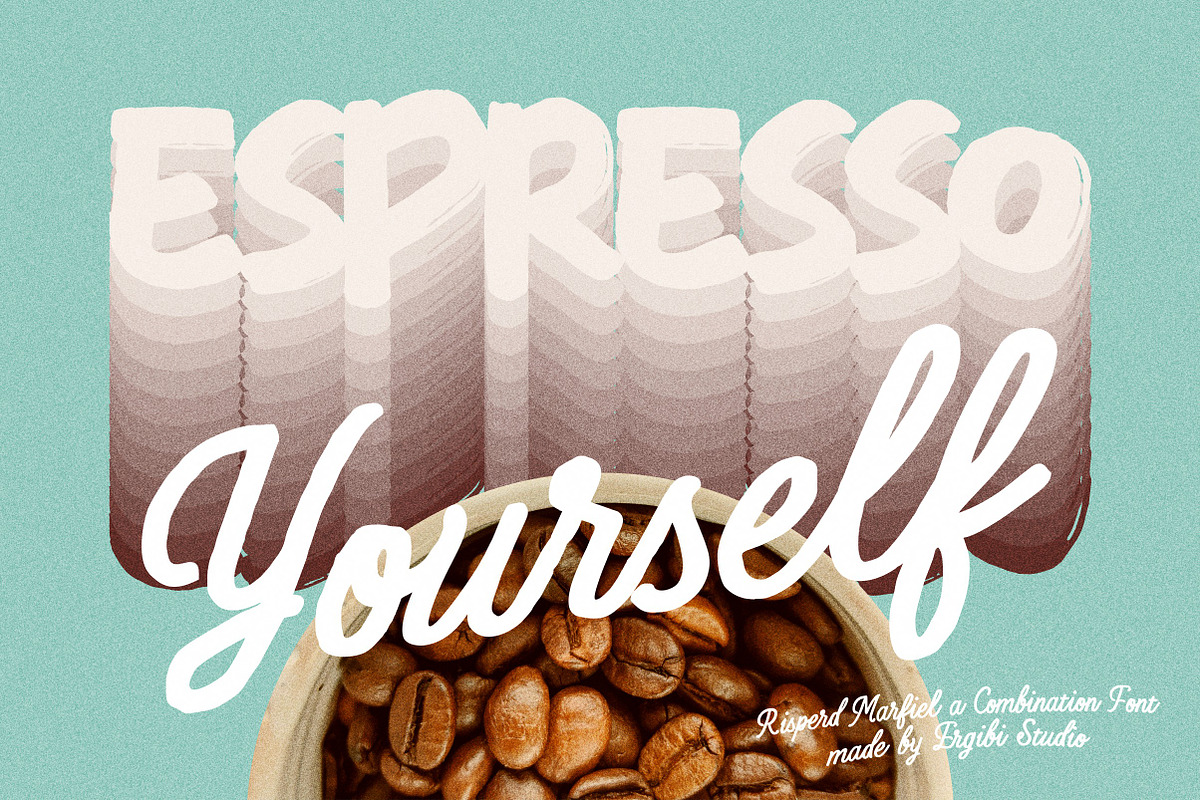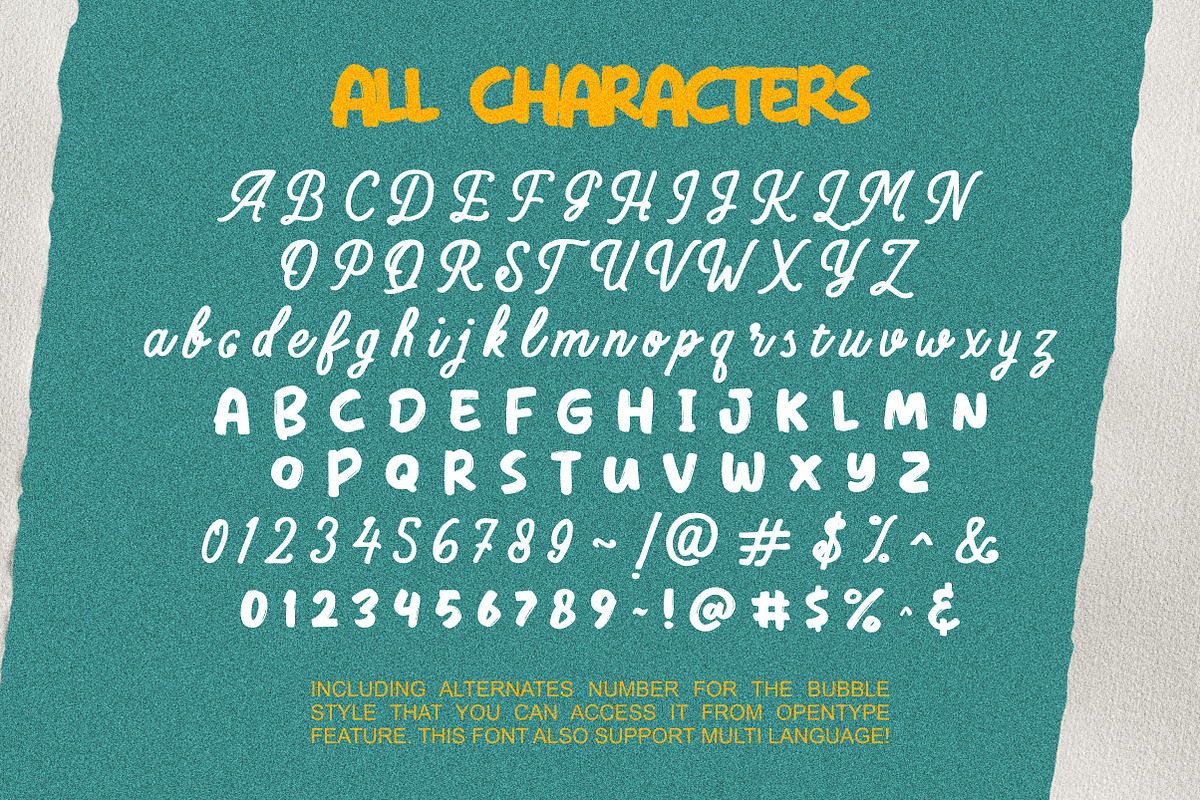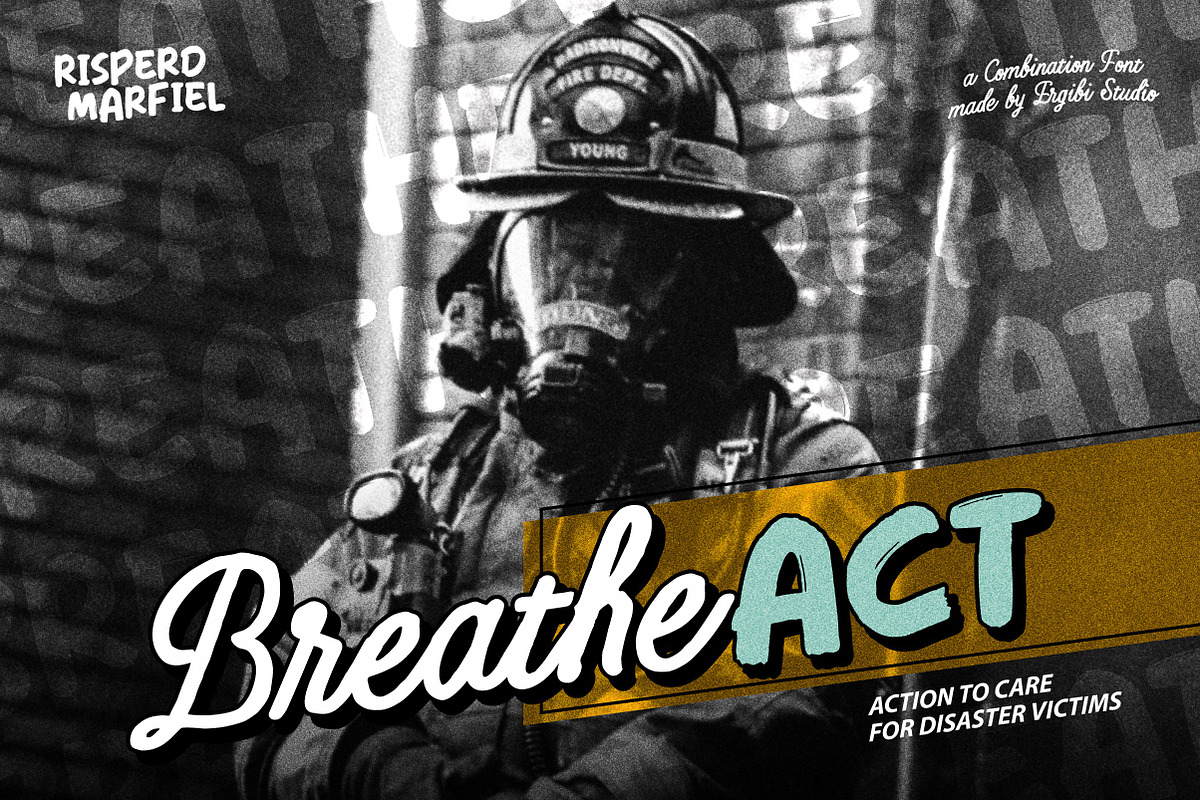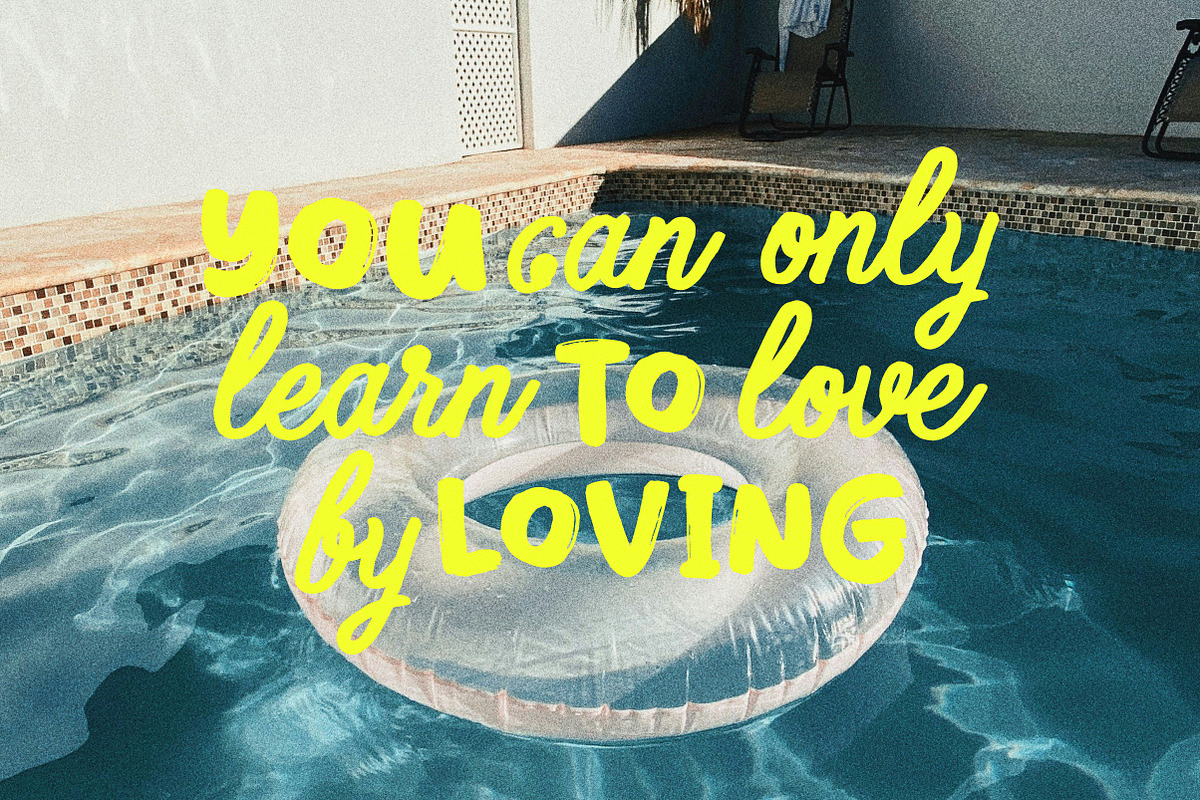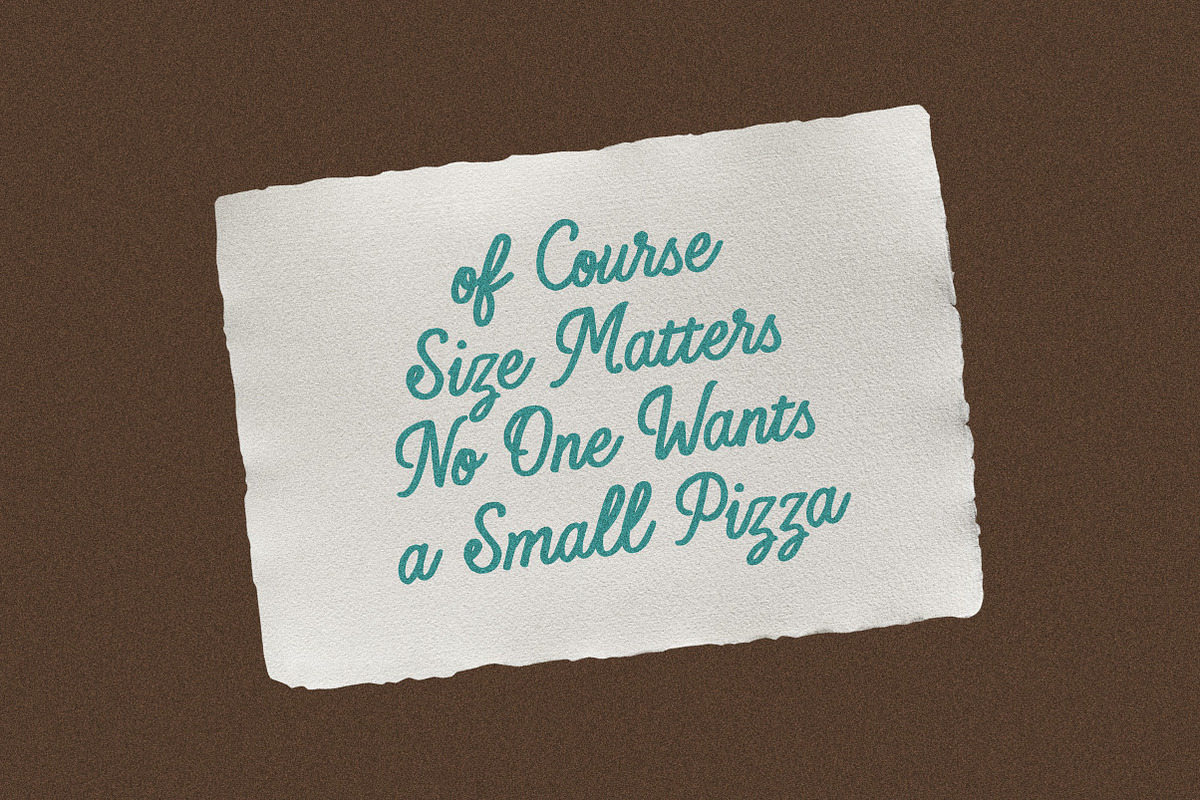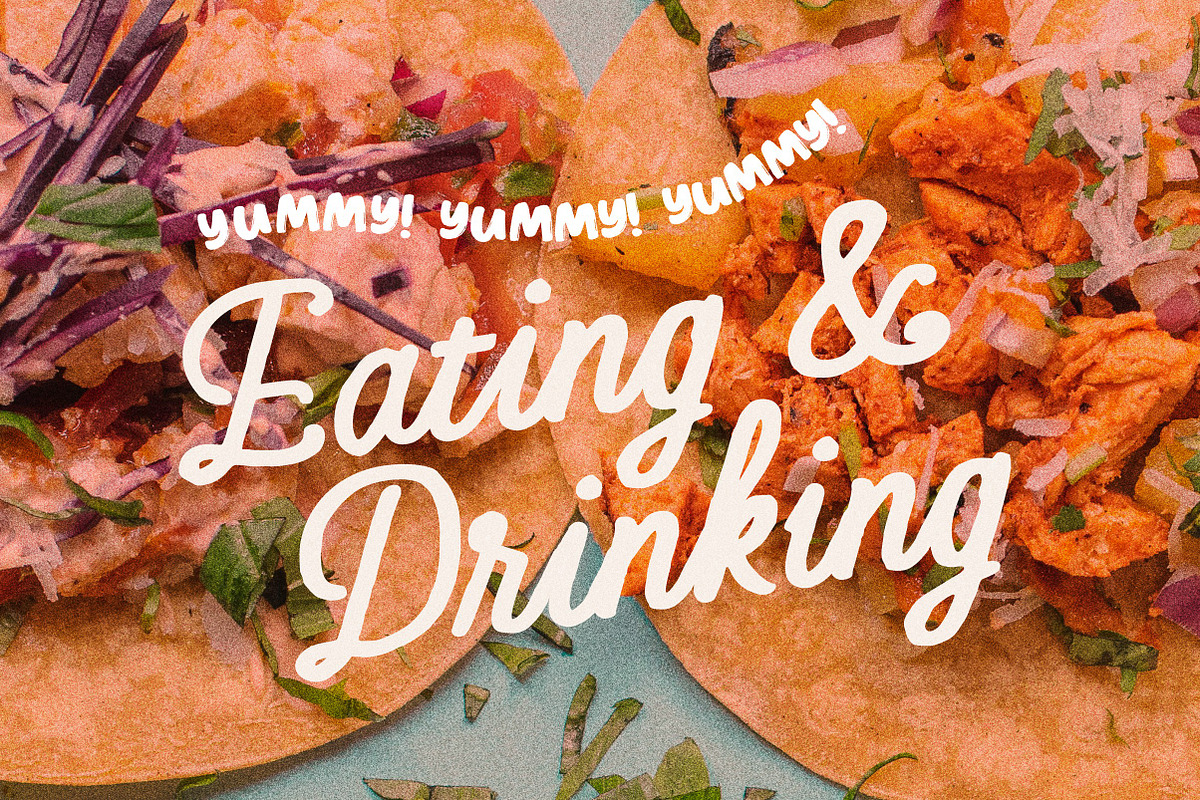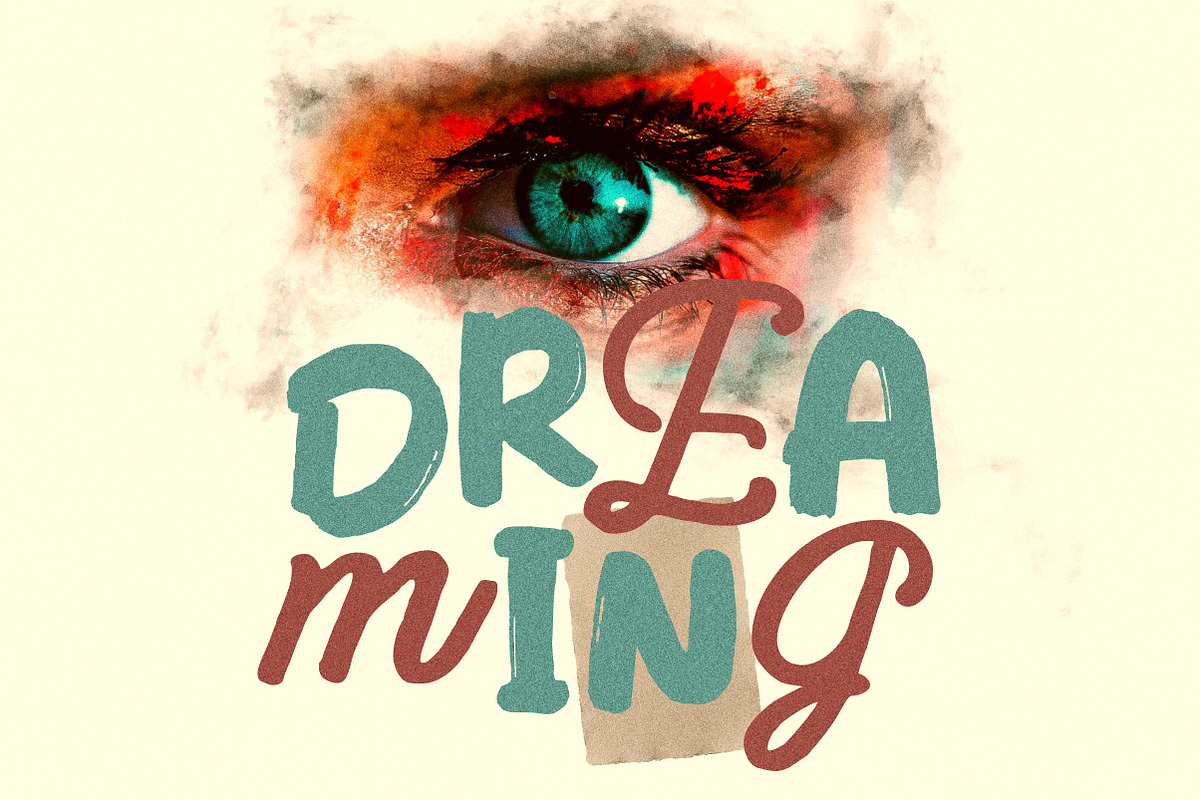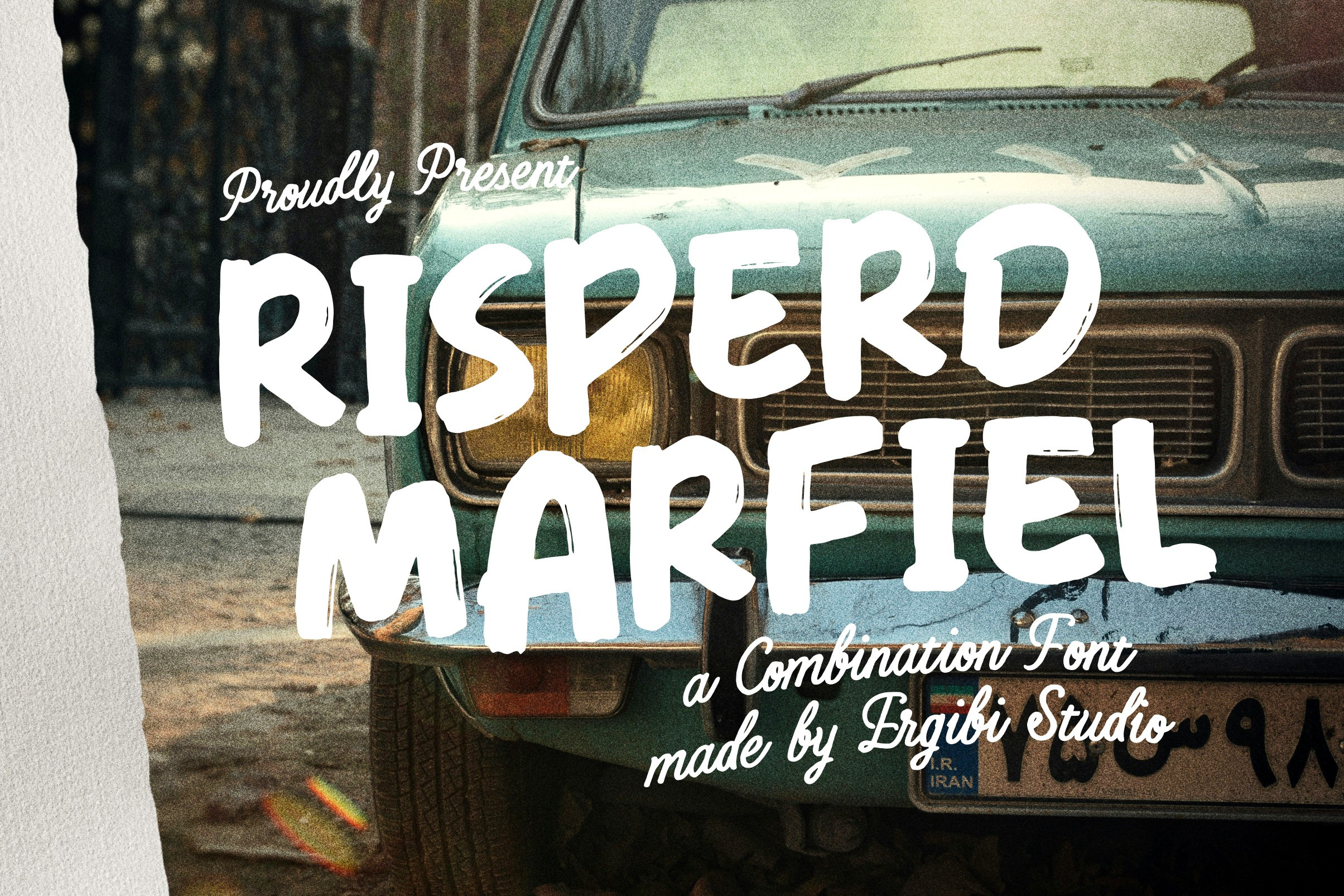
Risperd Marfiel - a Combination Font
Risperd Marfiel is a combination font for projects with an organic, hand-drawn vibe. This combination font is perfect for product packaging, movie posters, art posters, quotes, logo designs, etc. Includes a dingbats font full of additional strokes to decorate text or create beautiful quotes for social media posts.